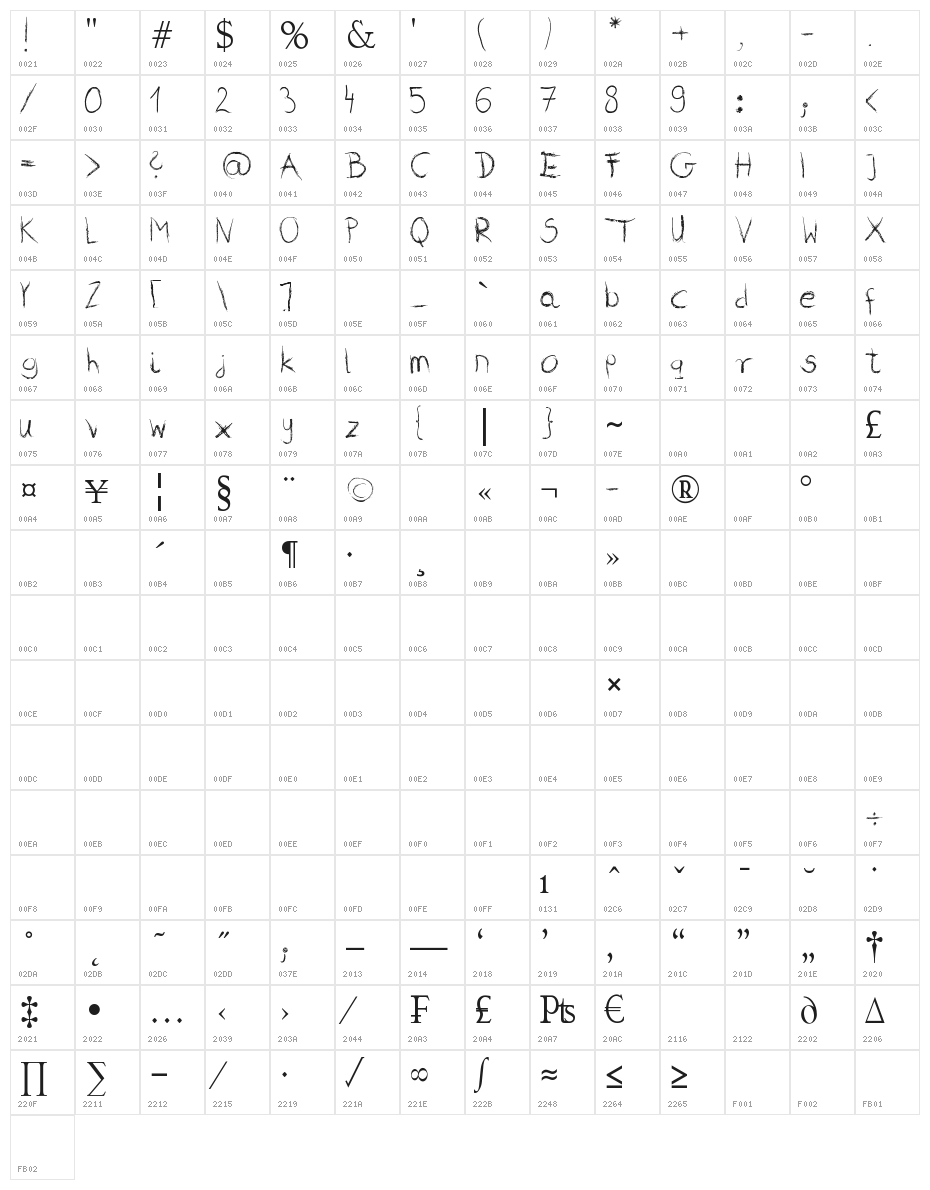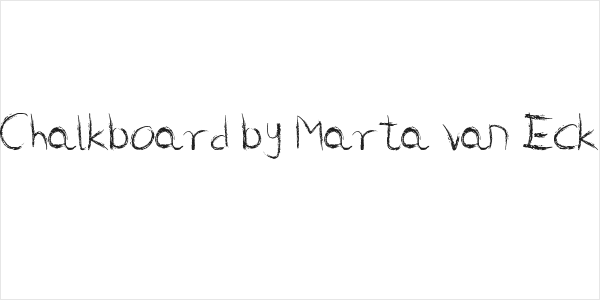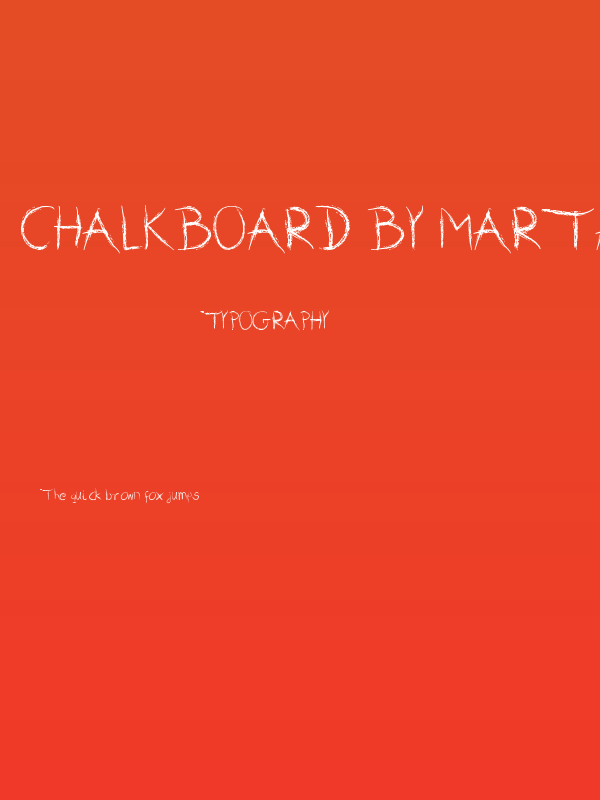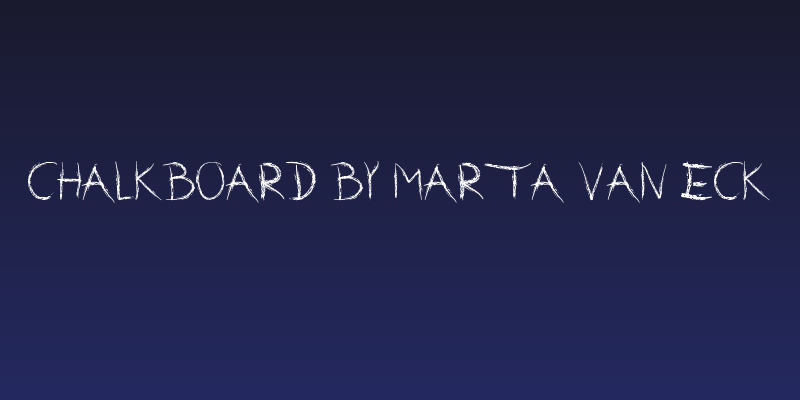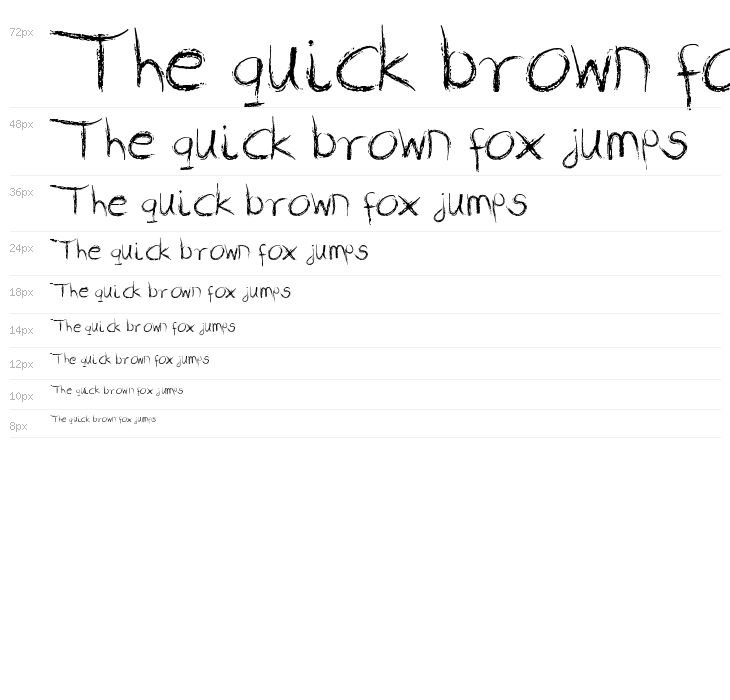
Chalkboard by Marta van Eck Font
Chalkboard by Marta van Eck Description
This font exudes a playful and artistic vibe, reminiscent of chalk writing on a blackboard. The characters are unevenly textured, giving them a hand-drawn appearance with a slightly rough edge. The uppercase and lowercase letters maintain a consistent style, with strokes that vary in thickness, adding to the casual and informal look. The numerals and special characters follow the same design ethos, ensuring a cohesive appearance across all glyphs. This font is perfect for projects that require a touch of whimsy and creativity, making it ideal for educational materials, children's books, or any design that aims to capture a fun and approachable aesthetic.
| Proposed Projects | Ideal for educational materials, children's books, creative posters, and playful branding. |